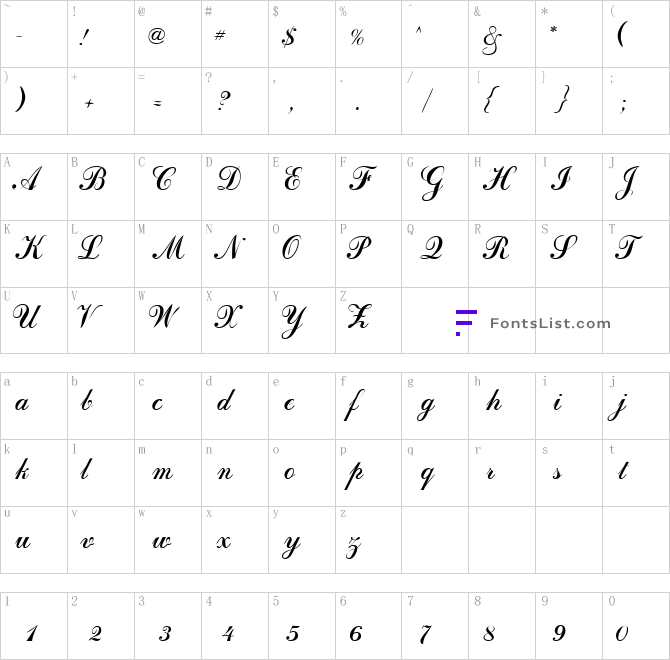
- Font Name:Dahling Script Ssk
Dahling-Script-Ssk.ttf is a very beautiful artistic font, Dahling-Script-Ssk.ttf is widely used in the design and printing of various books and pictures,Dahling-Script-Ssk.ttf has a strong visual impact,Dahling-Script-Ssk.ttf is a commonly used font in newspapers, magazines and books, and is used in posters, e-commerce Poster design, store design, logo design, font design and other fields.Dahling-Script-Ssk.